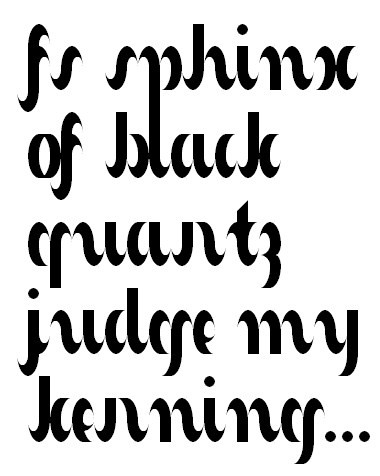
• An experimental script font. The grid scaling is set to 2 vertically, and the lowercase x is built on a 2x4 grid. Suggestions are welcome.
09/26/13 Latin accents have been added, and several letters modified. V1.1.0
12/18/13 Minor problems with Ů, ů and 2 were fixed. V1.1.1
Not hard, nice and simple! The kerning is great, btw. 10/10 + fav!
Very cool. I rather love the scalable grid, as I've used it in almost every font I've created, except Malachite.
Nice work, the fin brick connectors giving it a flow of its own.
Very effective. 10/10
Congratulations! FontStruct Staff have deemed your FontStruction worthy of special mention. “fs sphinx” is now a Top Pick.